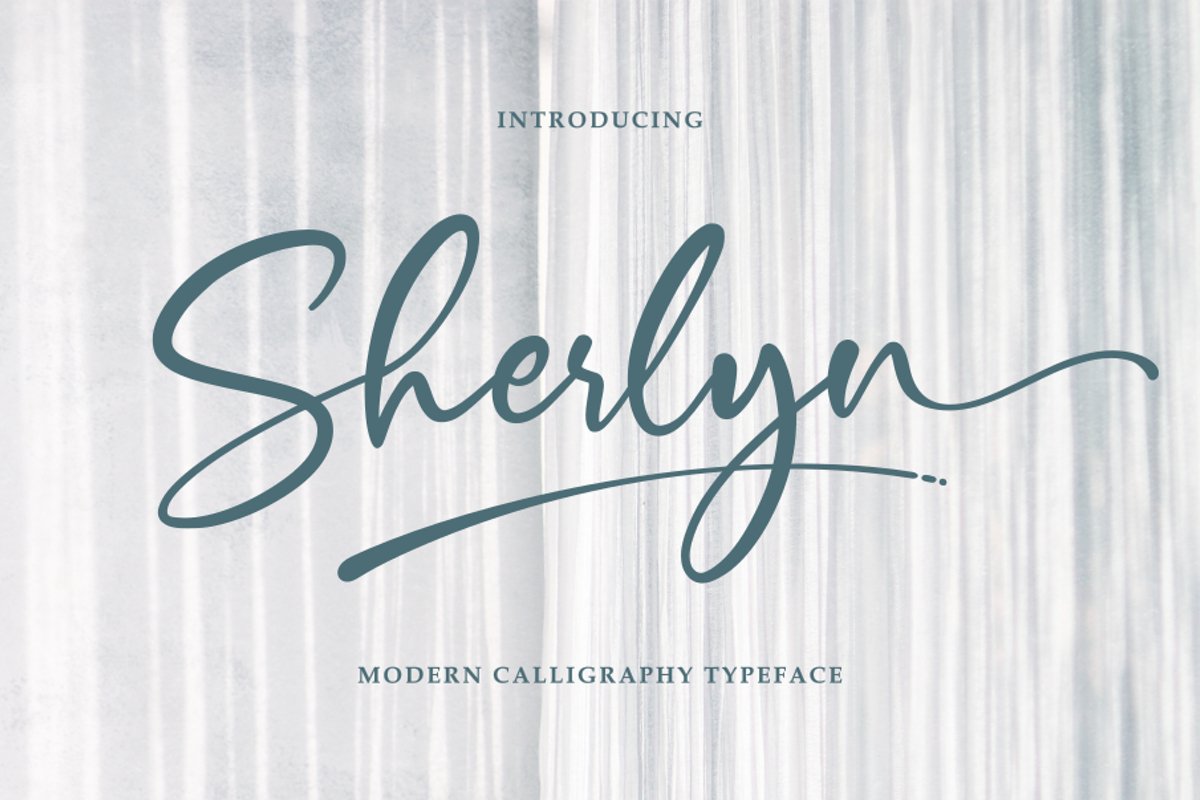
Sherlyn
Sherlyn is a natural handwritten font perfect for many different design products. Use this script to put a signature touch on your design project.
It will add a luxurious touch to any design project such as: t-shirts, posters, cards, Christmas and holiday invitations, wedding invites and stationery, logos, etc.What's included :
• Swash
• Alternate glyphs